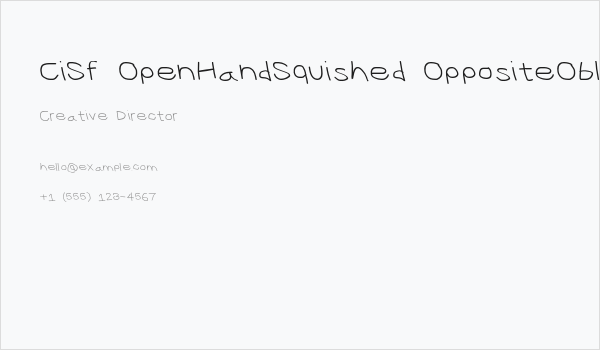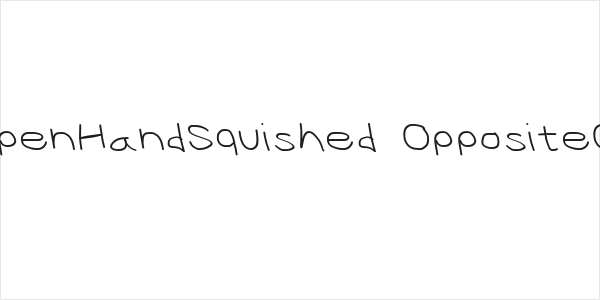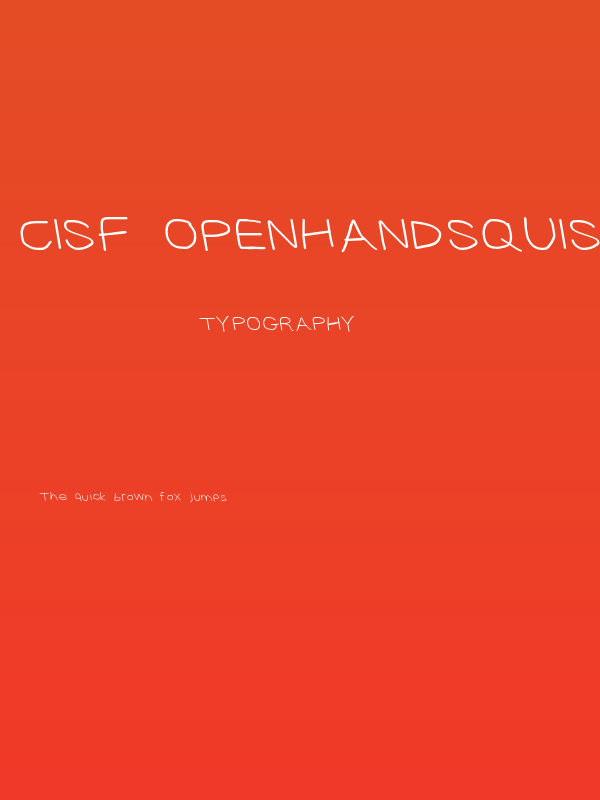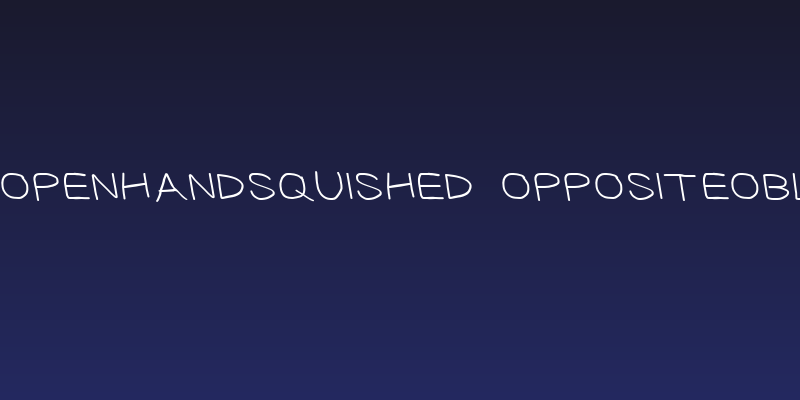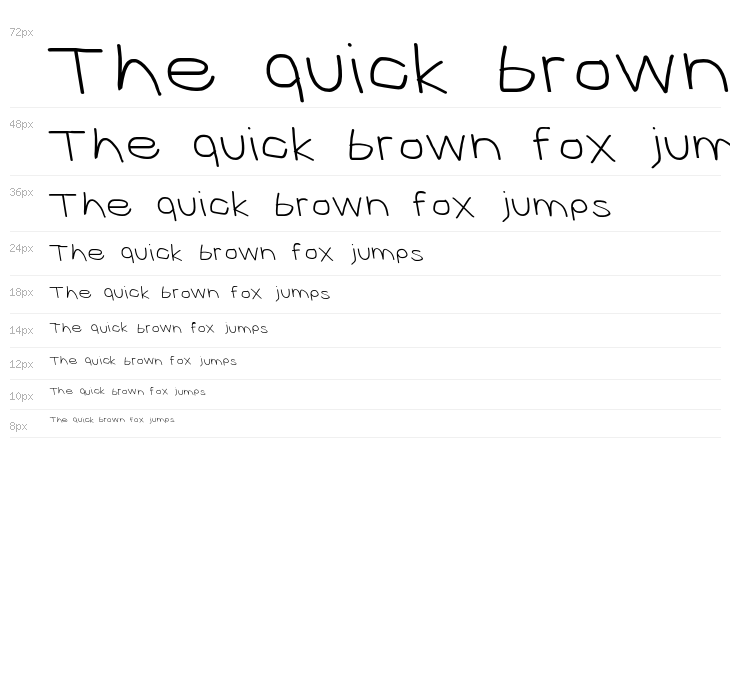
CiSf OpenHandSquished OppositeOblique Font
CiSf OpenHandSquished OppositeOblique Description
This font features a playful, handwritten style with a casual and informal appearance. The characters are slightly irregular, adding a whimsical touch to the overall design. The strokes are consistent in thickness, providing a uniform look despite the playful nature. The uppercase and lowercase letters maintain a cohesive style, with rounded edges and a slight slant that gives a dynamic feel. The numerals and special characters follow the same design principles, ensuring a harmonious appearance across all elements.
| Use Case | Headlines, Informal text, Branding |
| Proposed Projects | Ideal for children's books, greeting cards, informal invitations, and playful branding projects. |